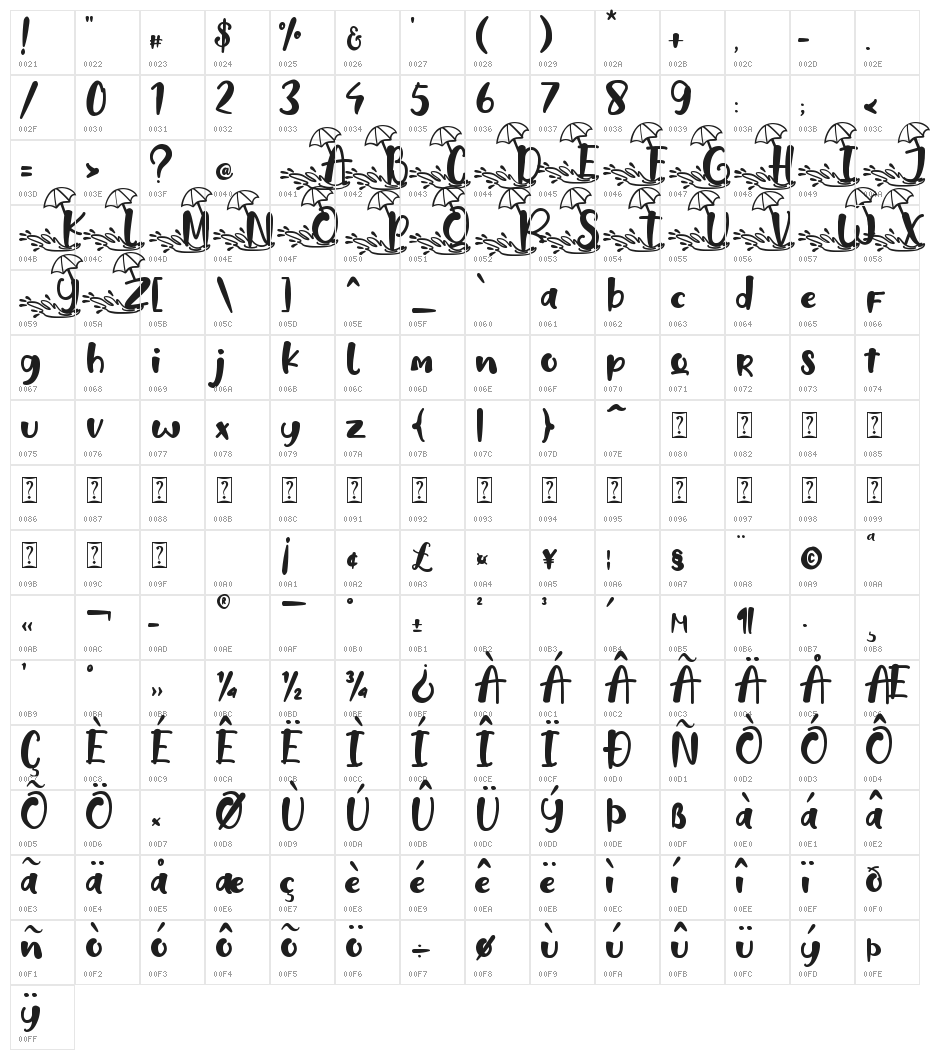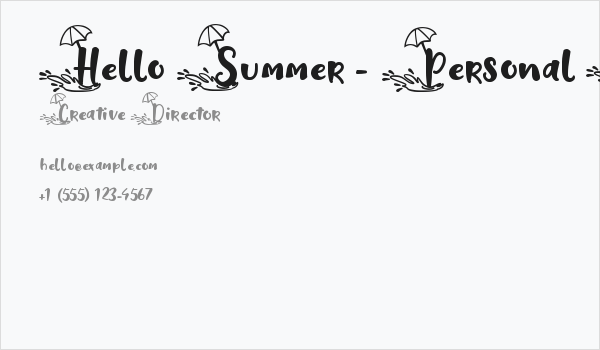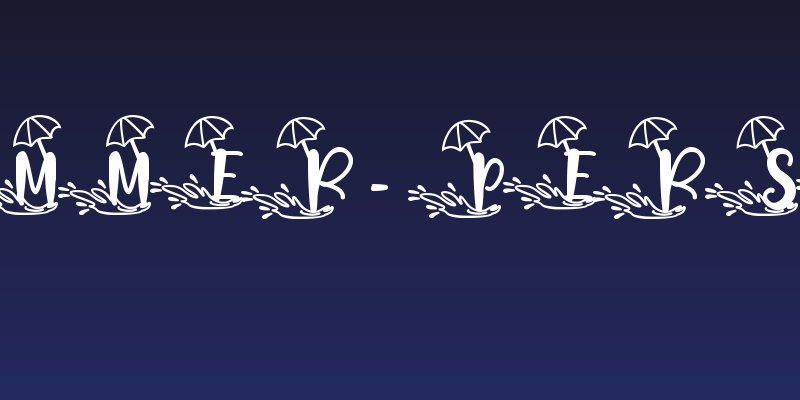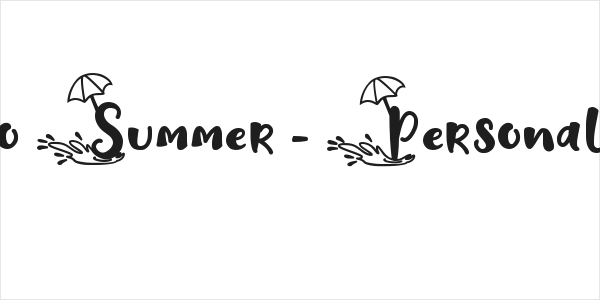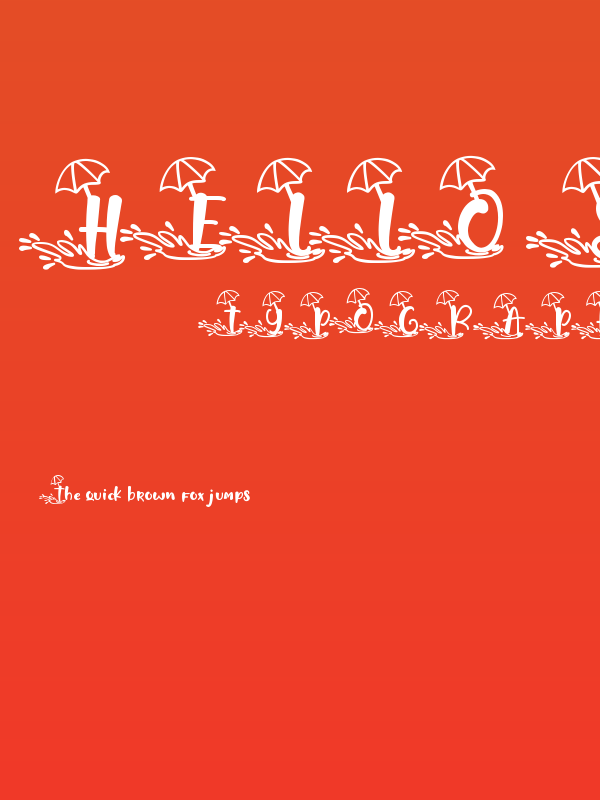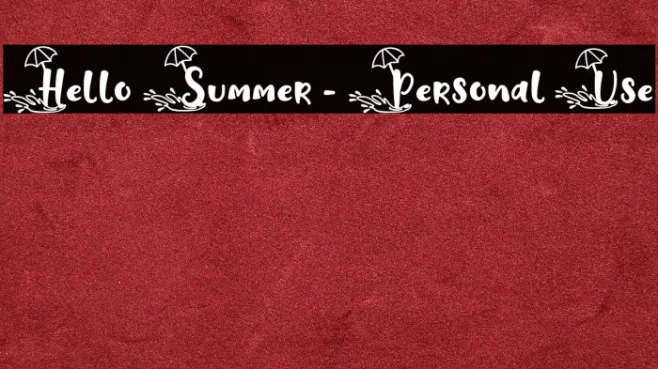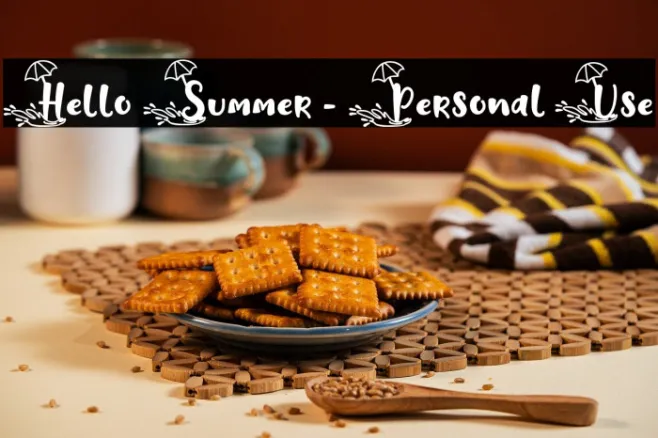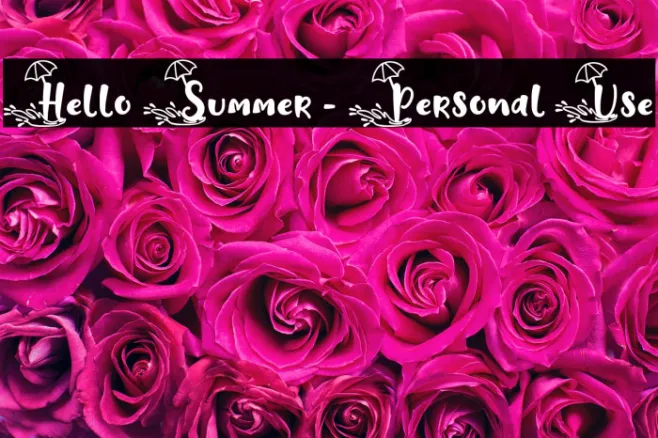
Hello Summer - Personal Use Font
Hello Summer - Personal Use Description
This playful and whimsical font features a unique design where each uppercase letter is adorned with a small beach umbrella and wave motif, evoking a sense of summer fun and relaxation. The lowercase letters are bold and rounded, with a casual, handwritten style that adds a friendly and approachable feel. The numbers and special characters maintain this playful aesthetic, ensuring consistency across all elements. The font's overall design is perfect for projects that aim to convey a lighthearted and cheerful mood.
| Proposed Projects | Ideal for summer event invitations, beach party flyers, children's book covers, and playful branding projects. |